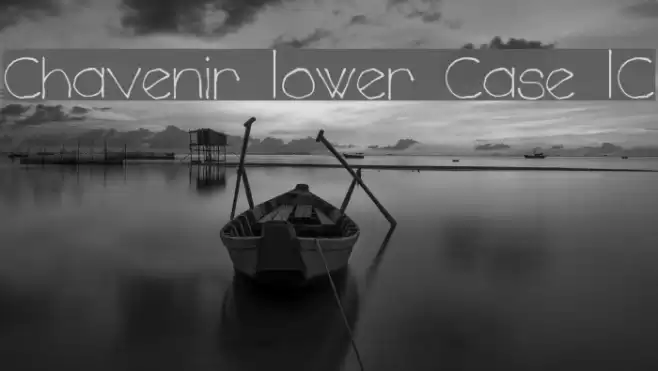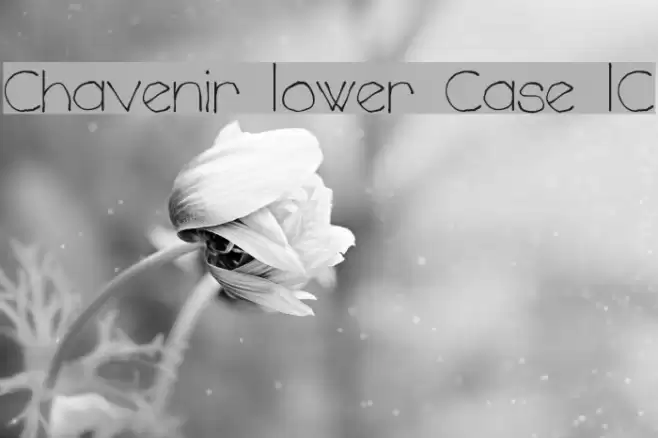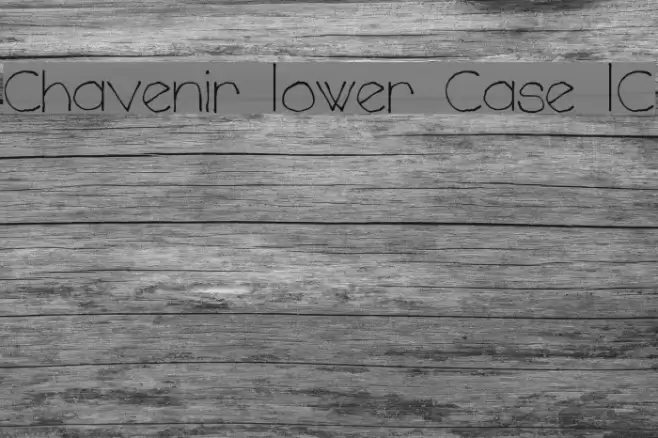
Chavenir Lower Case LC Font
Chavenir Lower Case LC Description
This font features a unique, hand-drawn style with a playful and whimsical appearance. The characters are thin and elongated, with a slightly irregular stroke that gives it a casual and informal feel. The lowercase letters have a consistent height, while the uppercase letters maintain a similar width, creating a harmonious balance. The numbers and special characters follow the same design principles, ensuring a cohesive look across all elements. This font's distinctive style makes it stand out, offering a creative and artistic touch to any project.
A playful, hand-drawn font with thin, elongated characters and a whimsical style from Uncategorized fonts.
- Proposed Projects: Ideal for creative projects such as children's books, greeting cards, and artistic posters.
- Use Case: Logos, Headlines, Artistic projects